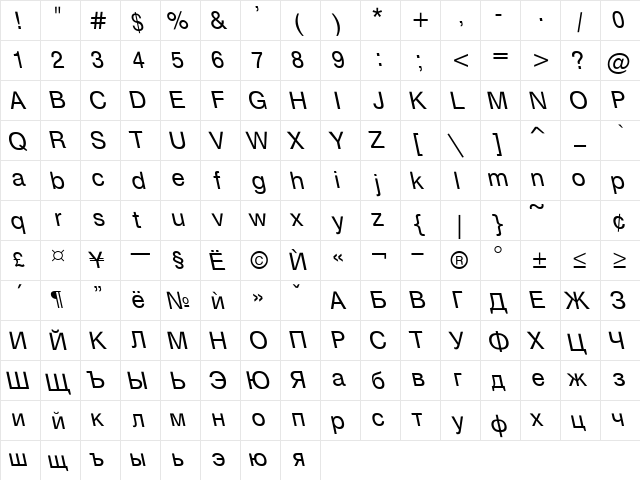
HebarLeftObl Normal
Design Context for HebarLeftObl Typeface
HebarLeftObl takes a measured approach to typography — its balanced proportions and neutral character make it a reliable workhorse for both digital and print work.